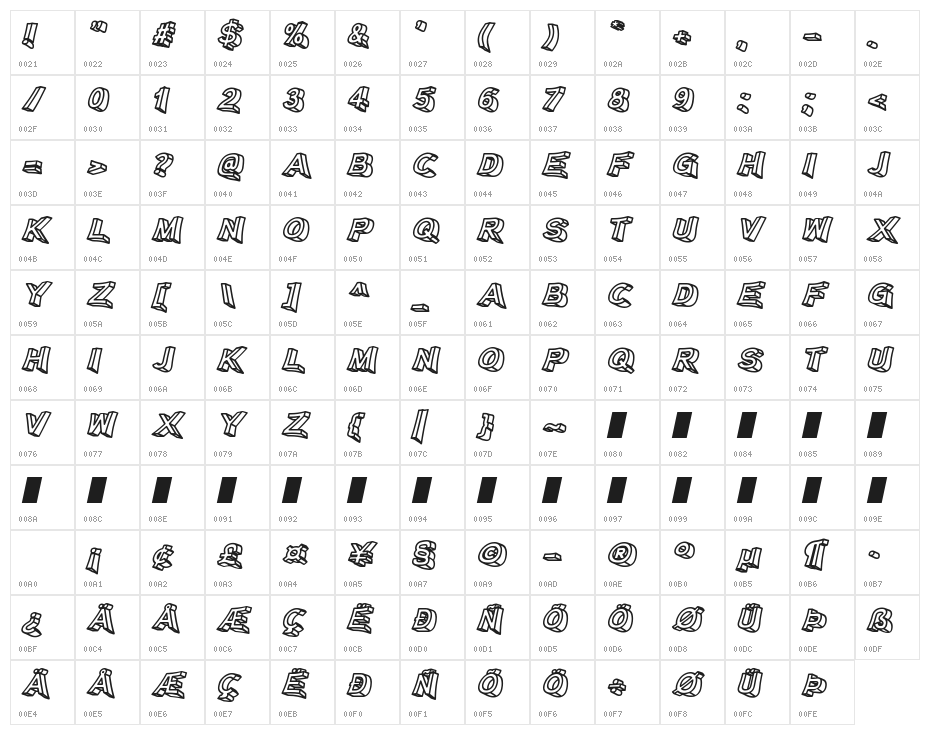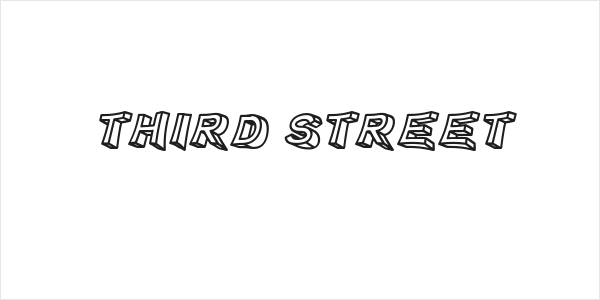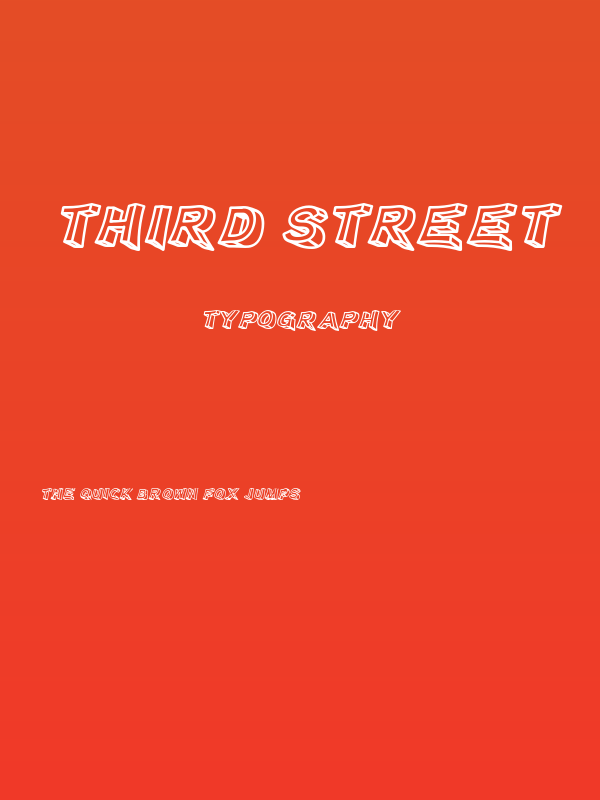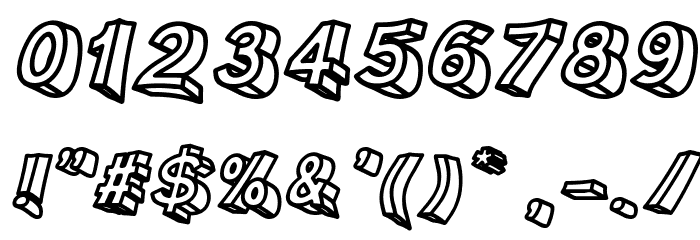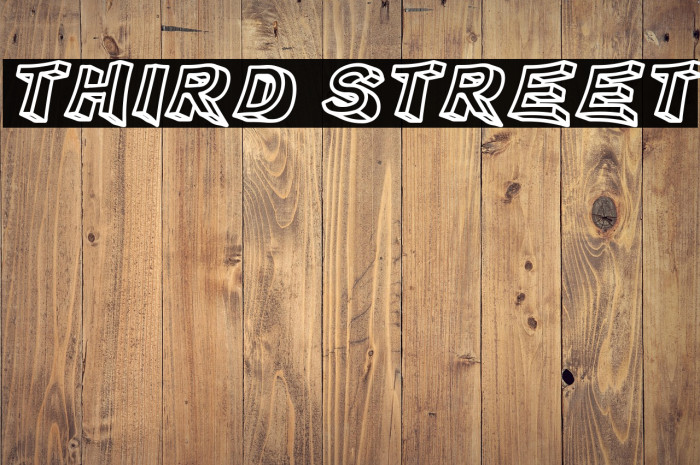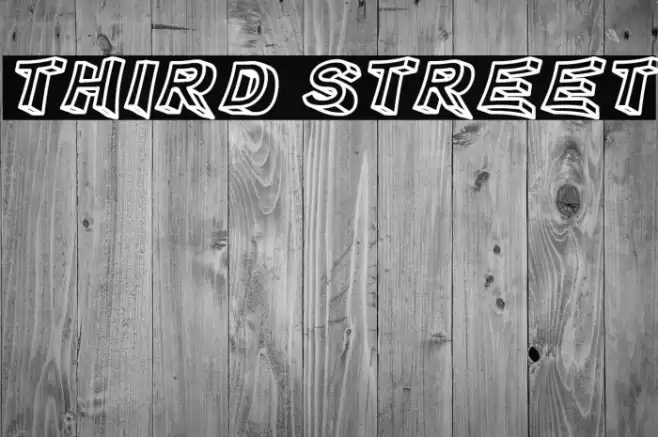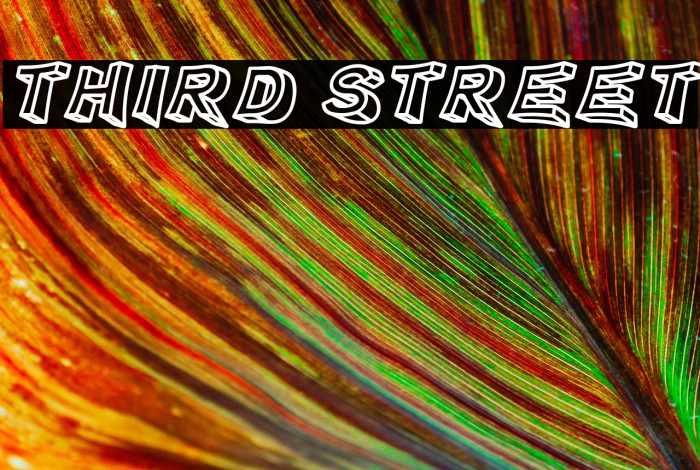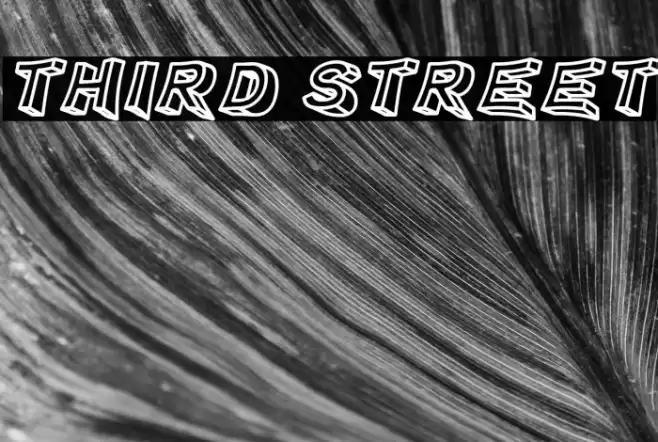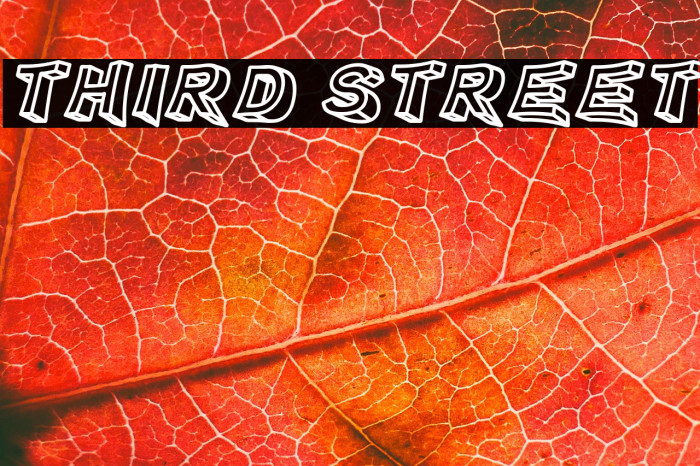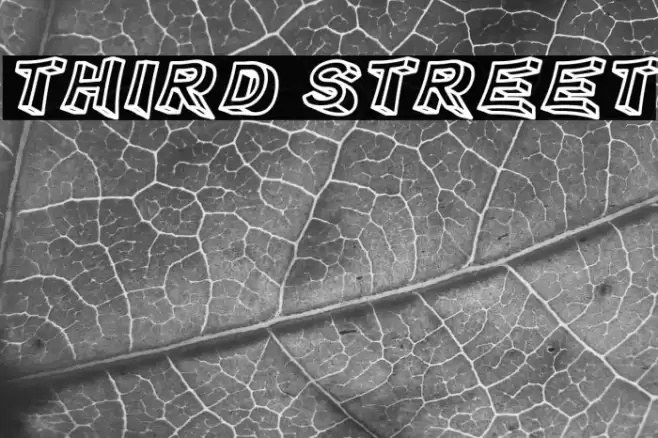
Third Street Font
Third Street Description
This font features a bold, three-dimensional style with a playful and dynamic appearance. The letters are outlined with a thick black border, giving them a strong presence. The inner part of each character is filled with a white space, creating a striking contrast that enhances readability. The font's design is reminiscent of comic book lettering, with exaggerated angles and a sense of movement. This style is eye-catching and suitable for attention-grabbing headlines or titles. The numbers and special characters follow the same design principles, ensuring consistency across all elements.
| Overall Style | Playful, Comic |
| Proposed Projects | Ideal for comic books, posters, children's books, and playful branding projects. |